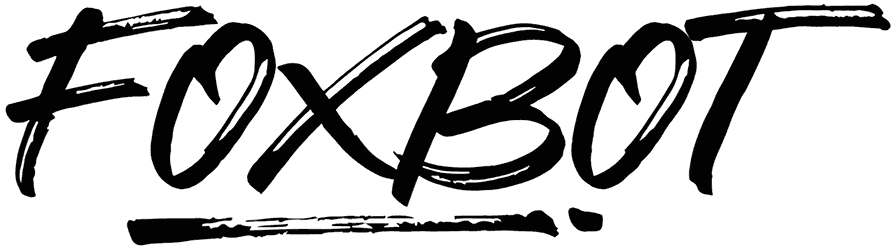
Foxbot Font
If you are designing posters, gift cards, business cards, logos, and invitations that require a personalized touch, we offer you to pick up a magical all-caps script font such as Foxbot to achieve your goal. Its characters are a little bit oblique and elongated, so this brush font can bring a sense of art, playfulness, dynamism, and drama.